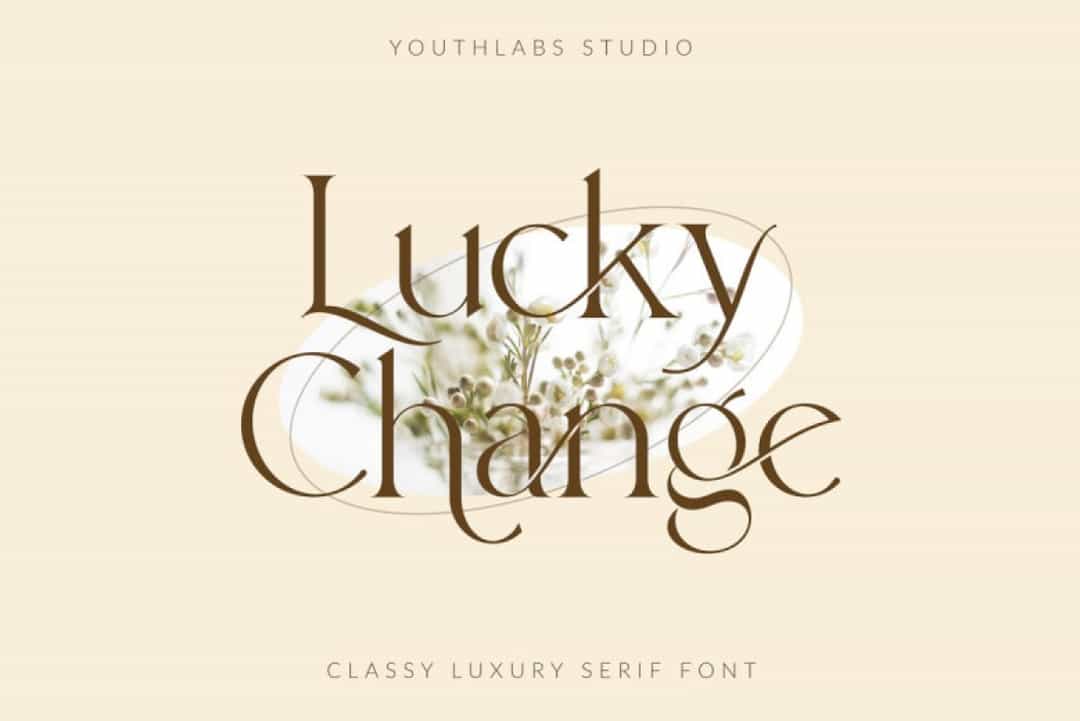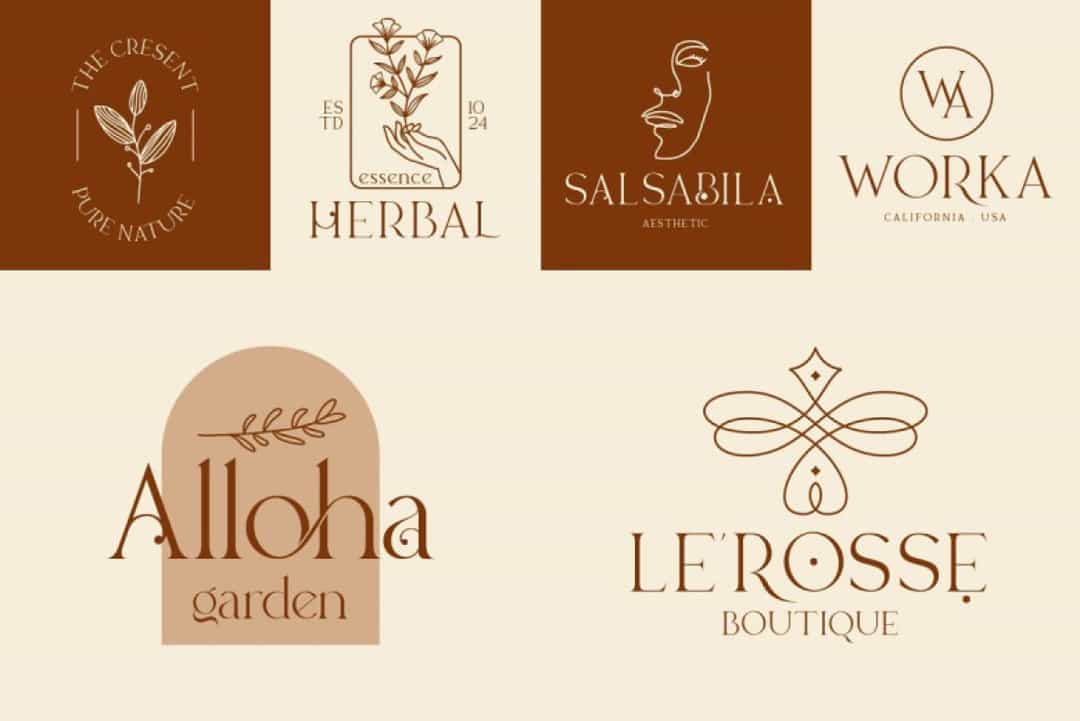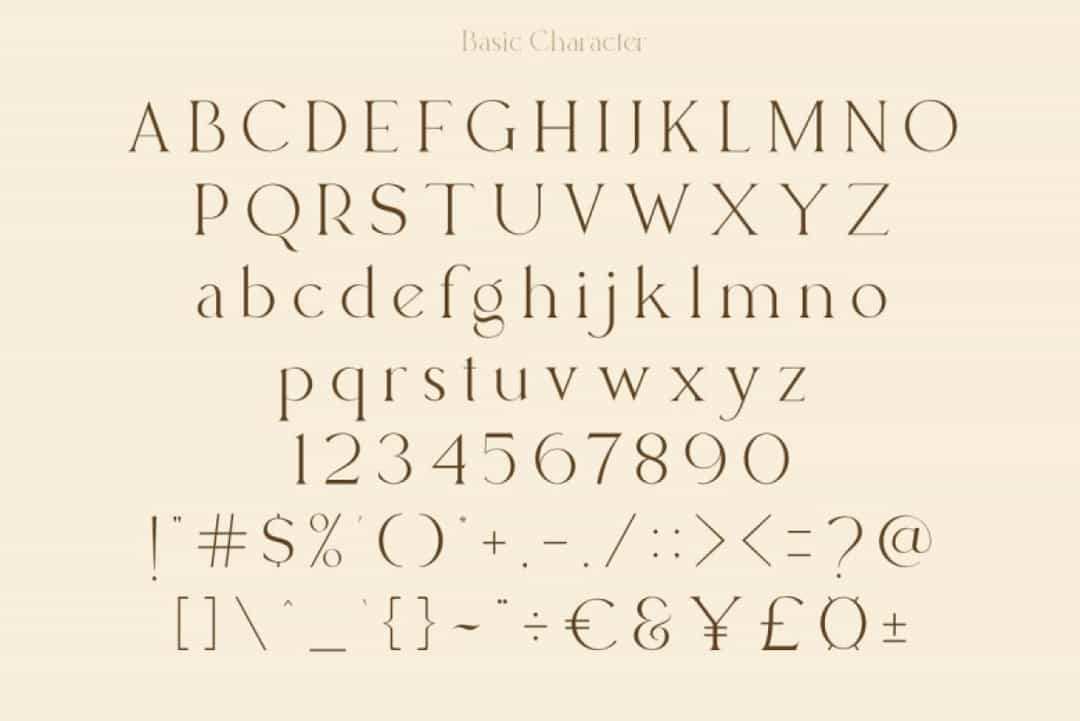
We are delighted to present the Lucky Change font – a New Serif Font featuring elegant, Premium Shape, Opentype Features, and graceful curves – which was inspired by Simple yet Luxe Typography.